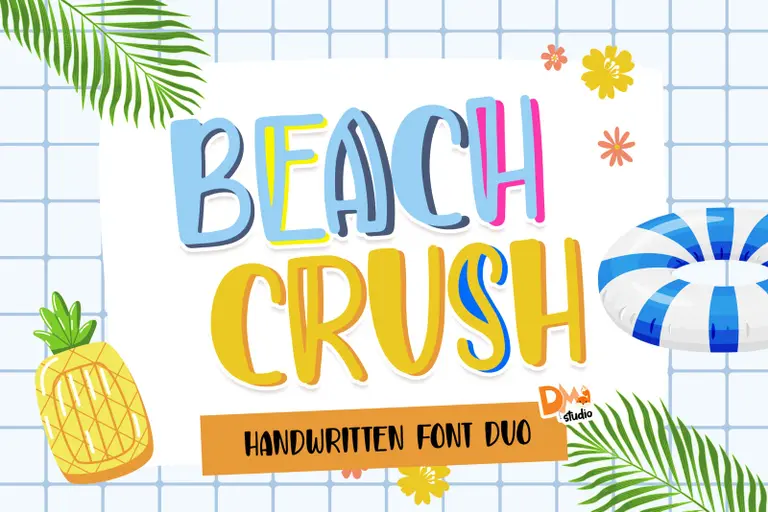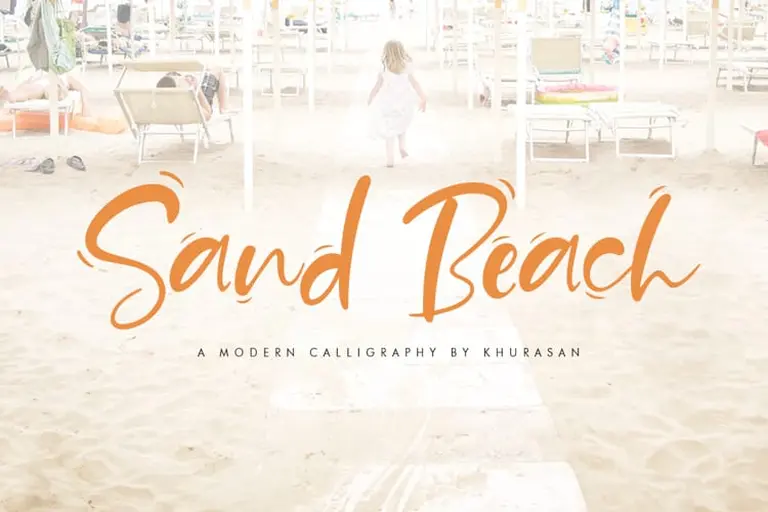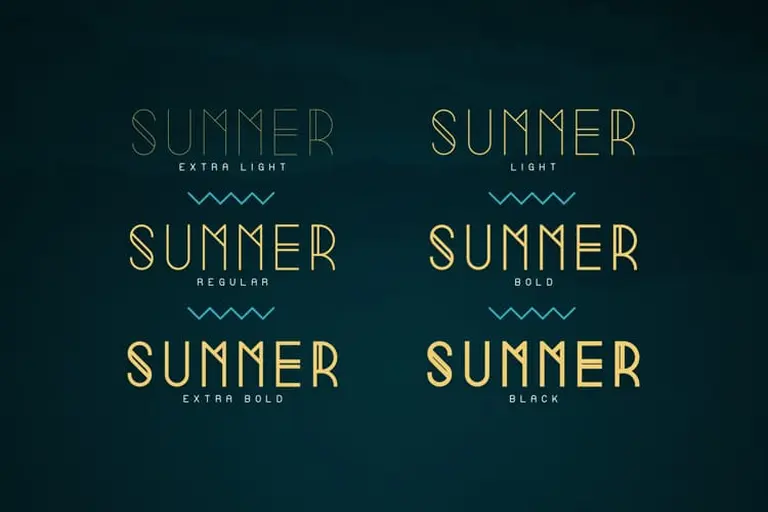
15 playful summer font styles to jazz up your designs
Summertime.
It's the part of the year so many of us look forward to the most—when we can get outside and enjoy the sun with a drink in hand.
But how do you capture that carefree feeling in a design? You've probably seen a poster or two that’s obviously meant to be summer-themed, but how can you bring this seasonal design aesthetic into your own designs?
Typography and beautiful fonts are probably the easiest way to bring the feeling of a summer breeze into your designs—whether for a website, social media posts, brochures, ads, or other creative summer projects.
Let’s look at the hottest summer fonts to jazz up your designs and reflect your summer state of mind. This fun collection of fonts is free for personal use, but you can also purchase commercial licenses if you need them for commercial purposes.
1. Palmsprings font by Billy Argel
Nothing says more “summer font” like Palmsprings, which incorporates palm trees into each letter.
This summer font looks great whether you use the color or black-and-white versions.
If you want a retro vibe, we suggest using the black-and-white version of this font. The bold font with palm tree leaves is perfect for social media posts, ads, summer party poster designs, and travel brochures.
2. Aloha Summer font by Jimtype Studio
Summer vibes = Hawaii = Aloha Summer font.
Are you noticing a theme here already? So many artists are inspired by Hawaii and palm trees when creating refreshing summer fonts that invite summer memories.
The Aloha Summer Font is characterized by a solid-color hand lettering style that complements a summery background.
Its simplicity might be perfect if you want to use it for a summer banner or summer sale banner that already contains many summer elements in the background.
3. Pacifico font by Google Fonts
Pacifico is a fun brush script handwriting font that is available on Google Fonts. It was designed by Vernon Adams in 2011 and inspired by the 1950s American surf culture.
It comes in three weights: light, Regular, and Bold. And, it also supports Cyrillic characters.n
If you're looking for a font with a playful and hand-written feel, Pacifico is a great option to consider for your design projects.
4. Tropical Asian font by Konstantine Studio
Now, let’s take an imaginary trip from Hawaii and The Bahamas to the tropical part of Asia.
This summer font is inspired by summer vibes and is a perfect fit for summer designs, such as banners with beach items or greeting card designs.
Doesn’t this hand-lettered brush font remind you of why it's fun to play with a careless brush and ink on paper? You can use this casual font for apparel design, cover design, and other unique designs like clip art designs.
5. Rancho font by Google
Rancho is a font designed by Google and it's part of the Google Fonts library. It's a script typeface inspired by the work of the Mexican poster artist and sign painter, Francisco "Pancho" Villa.
Rancho's handwritten style has a casual and friendly vibe, making it suitable for various design projects, such as summer party invitations, posters, and branding materials.
The font features a mix of both uppercase and lowercase letters, giving designers flexibility in creating visually appealing typography. It's free to use and can be easily accessed through the Google Fonts website, making it a popular choice among designers and developers.
6. Summer Peach font by Sakha Design
This unique summer font comes in two versions: regular and italic. And, we love them both.
Whichever option you choose, you can be sure that it will look good for your graphic designs, apparel design, business cards, and wedding invitations.
7. Hawaiian Dreams font by Billy Argel
Speaking of summer and palm trees, we can’t help but think of Hawaii and how cool it would be to have a Hawaiian-themed summer font.
This bold, wide-lettered font is full of Hawaiian dreams, just like its name. The creator of this playful font has included tropical plants in each letter.
If you don’t like the bright orange color or the flower combo used in the example above, you can check out the other versions of this summer font. There’s a version that doesn’t include the flowers and another that uses a pale orange color.